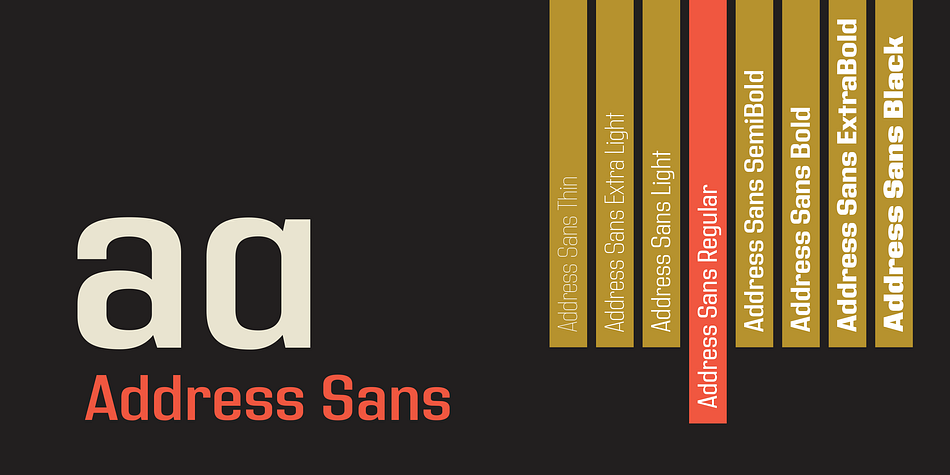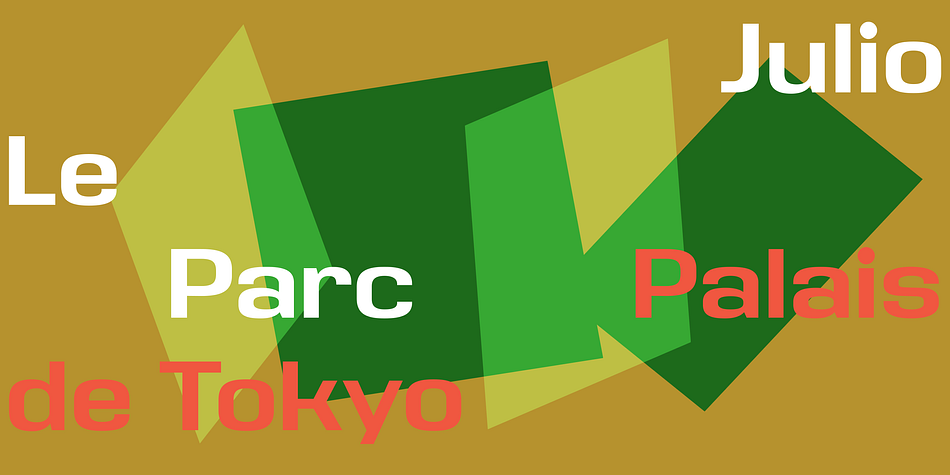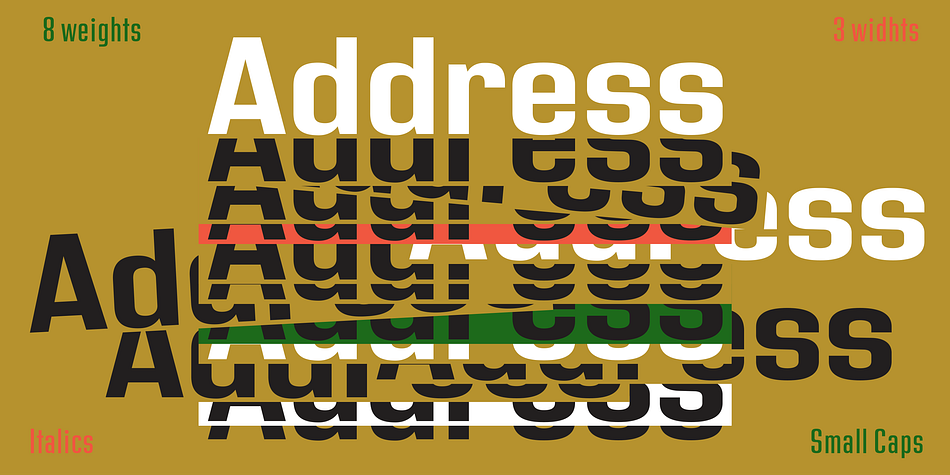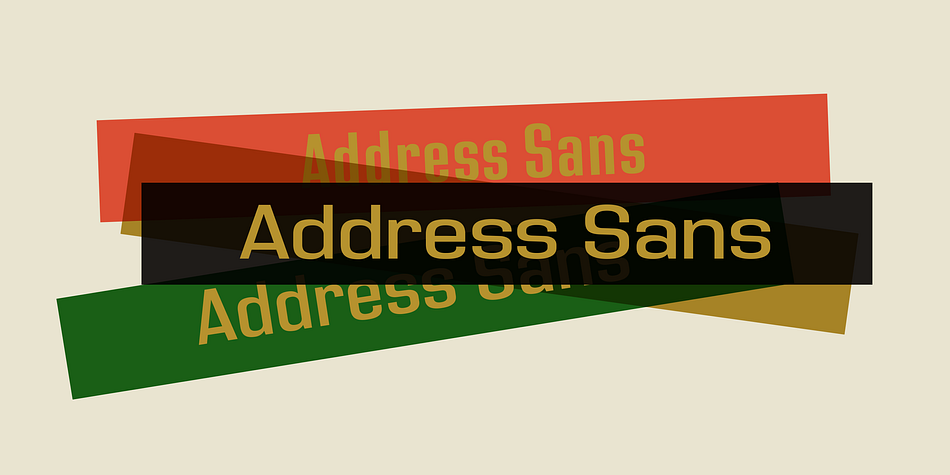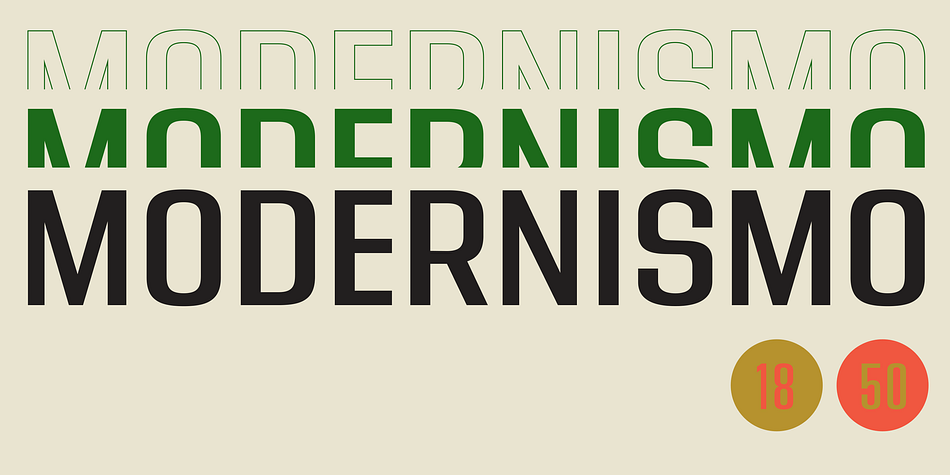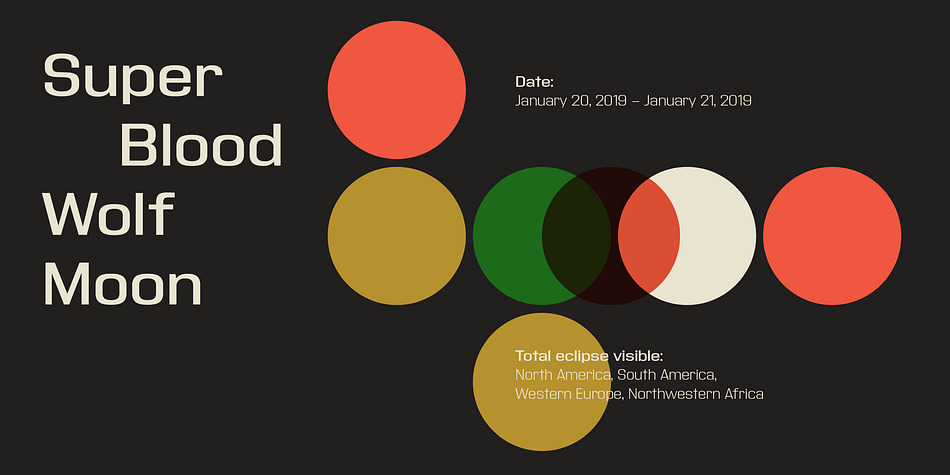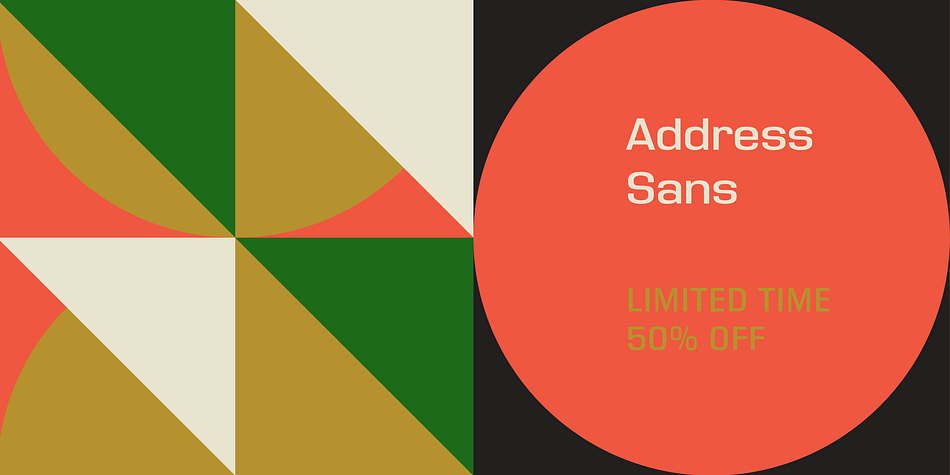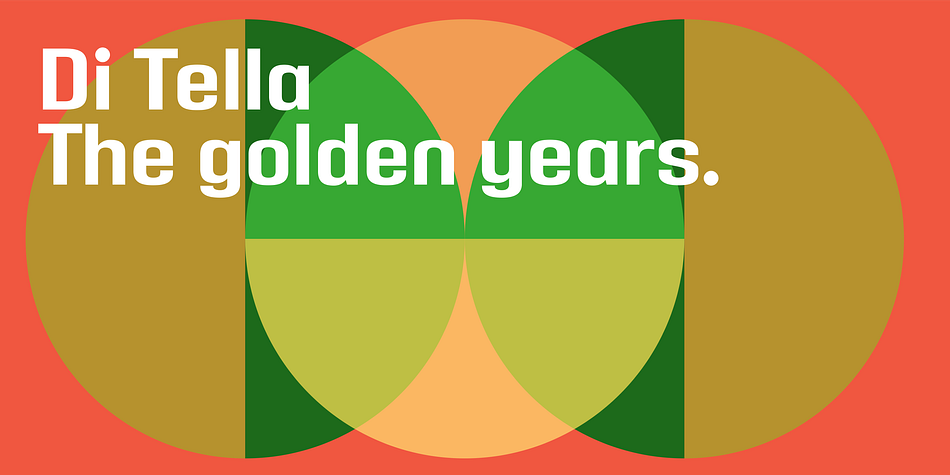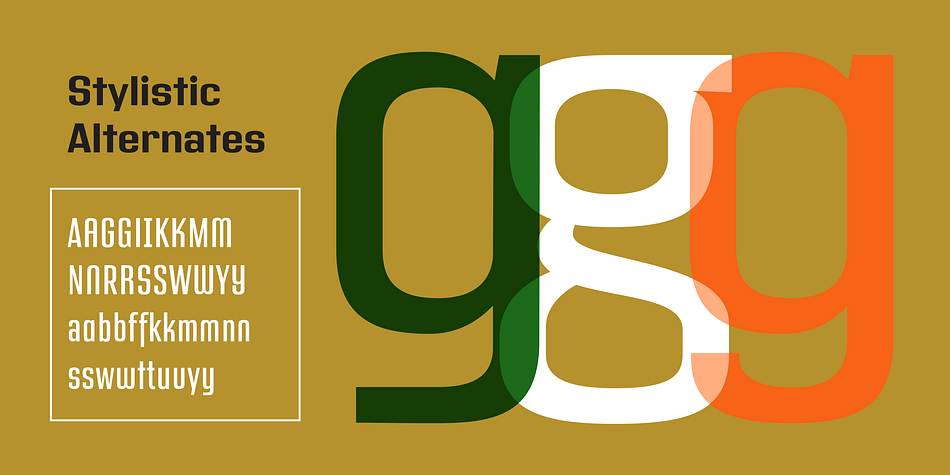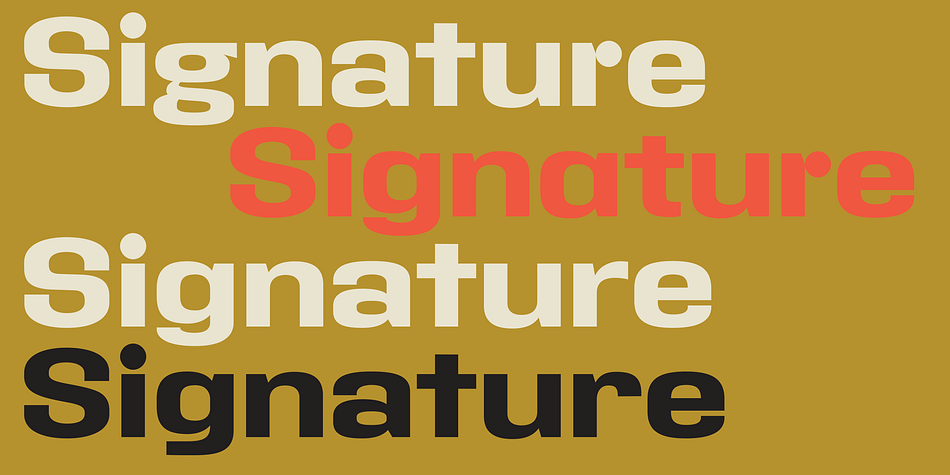
Designed by Alejandro Paul, Address Sans Pro is a sans serif font family. This typeface has forty-eight styles and was published by Sudtipos.
History is always in sight; it is constantly being reconsidered and reformulated in the context of now. We see approaches to art, fashion, textiles, homewares, furnishings … not to mention music, graphics and everything else that culturally enriches our daily lives, revisited and made anew for today.
Address Sans indulges in the spirit and aesthetics of mid-century Modern – Italian industrial design, sleek coffee makers, stylish cars, seductive jazz pressed on vinyl – with a charm and charisma that defies time. It evokes history but is decisively created for today.
Its design, in reality, is rooted in the condensed structure and block modulation of early 1950s German lettering intended for use in street signage, but when we started to work on the various weights and widths, the result was a set of fonts in a style similar to the typographic work developed by Butti and Novarese in the 60s. The multitude of potential applications for Address Sans then became clear.
In a range of 3 widths and 8 weights each, Address Sans includes little verses, true italics, small caps and numerous alternative signs for a total of 48 fonts. The result is a functional typeface that is effortlessly seductive, with geometric features and design details that ooze cool, and take it away from mere reinterpretation towards typographic forms that adapt perfectly for contemporary use.